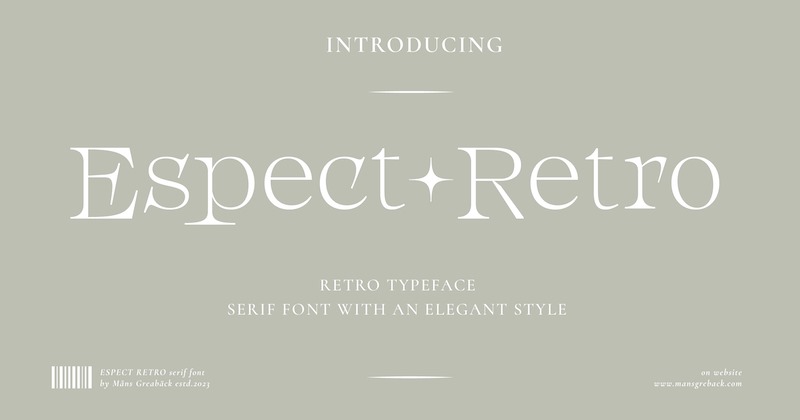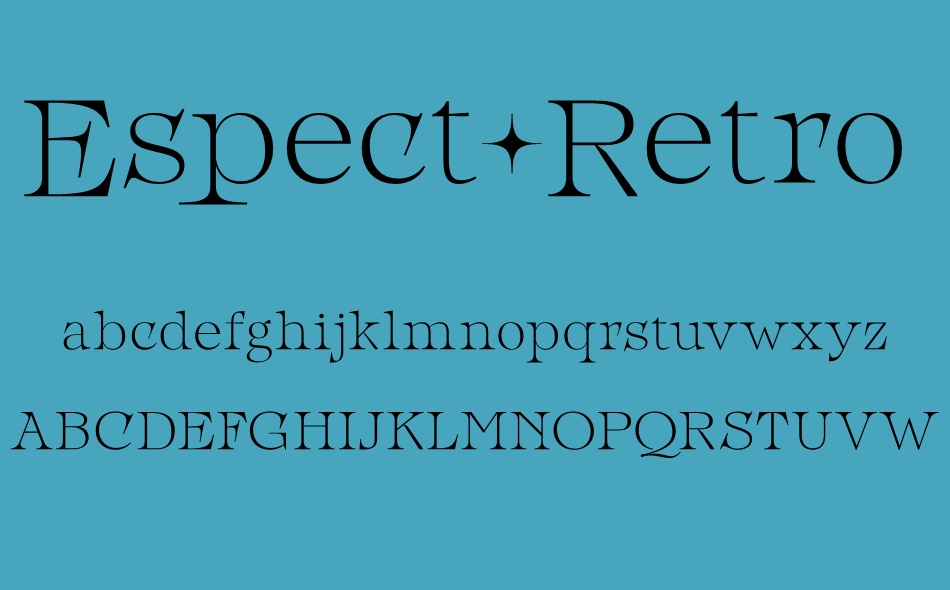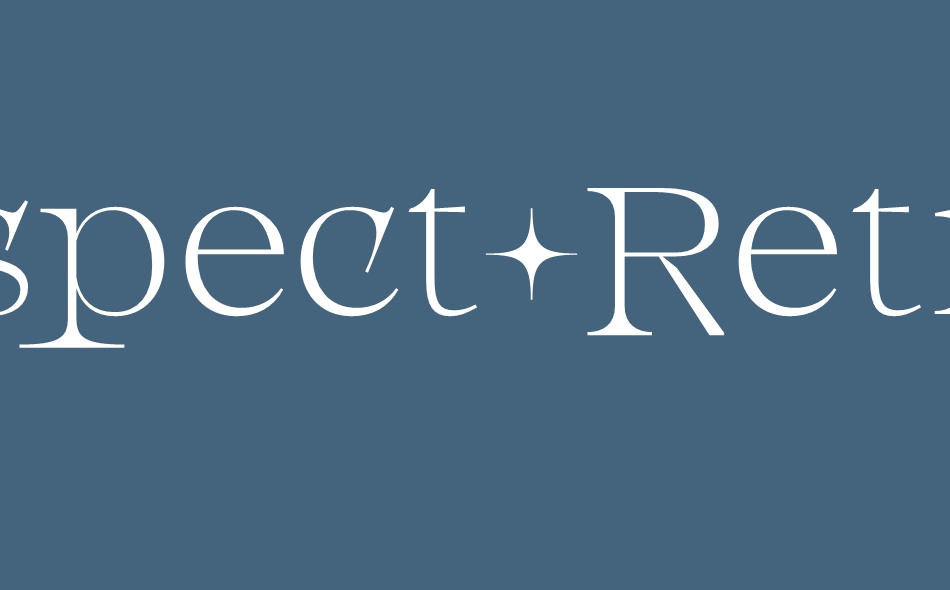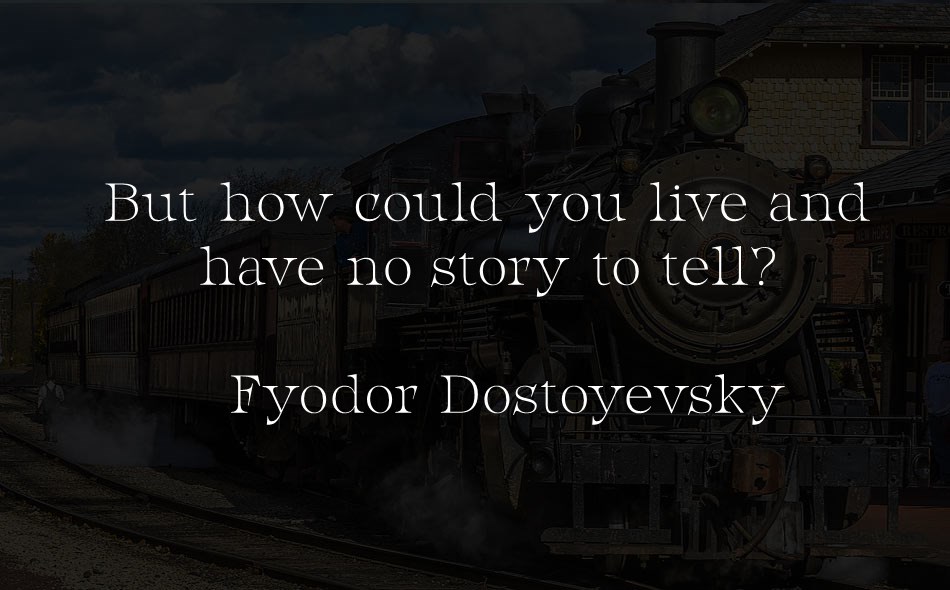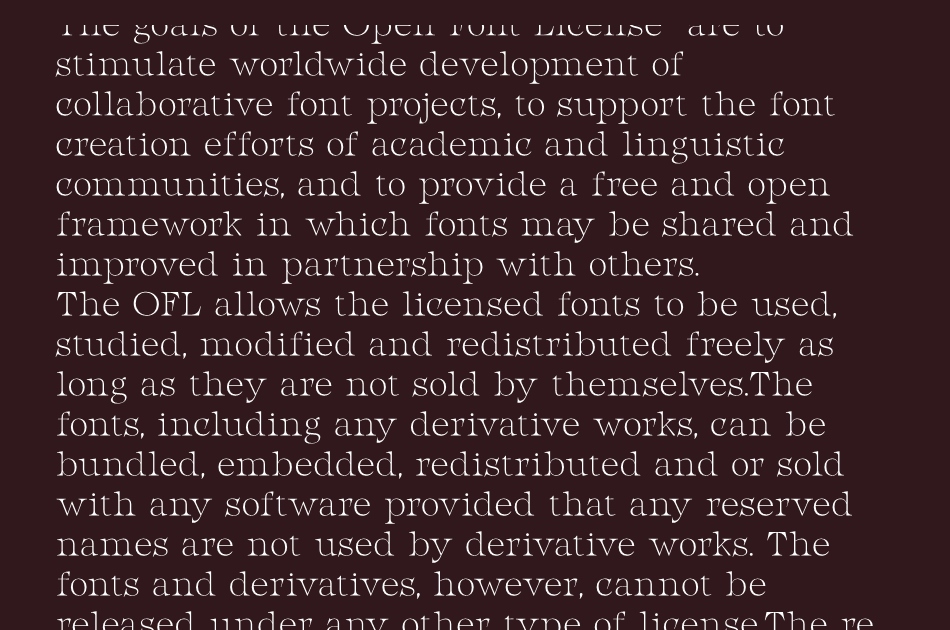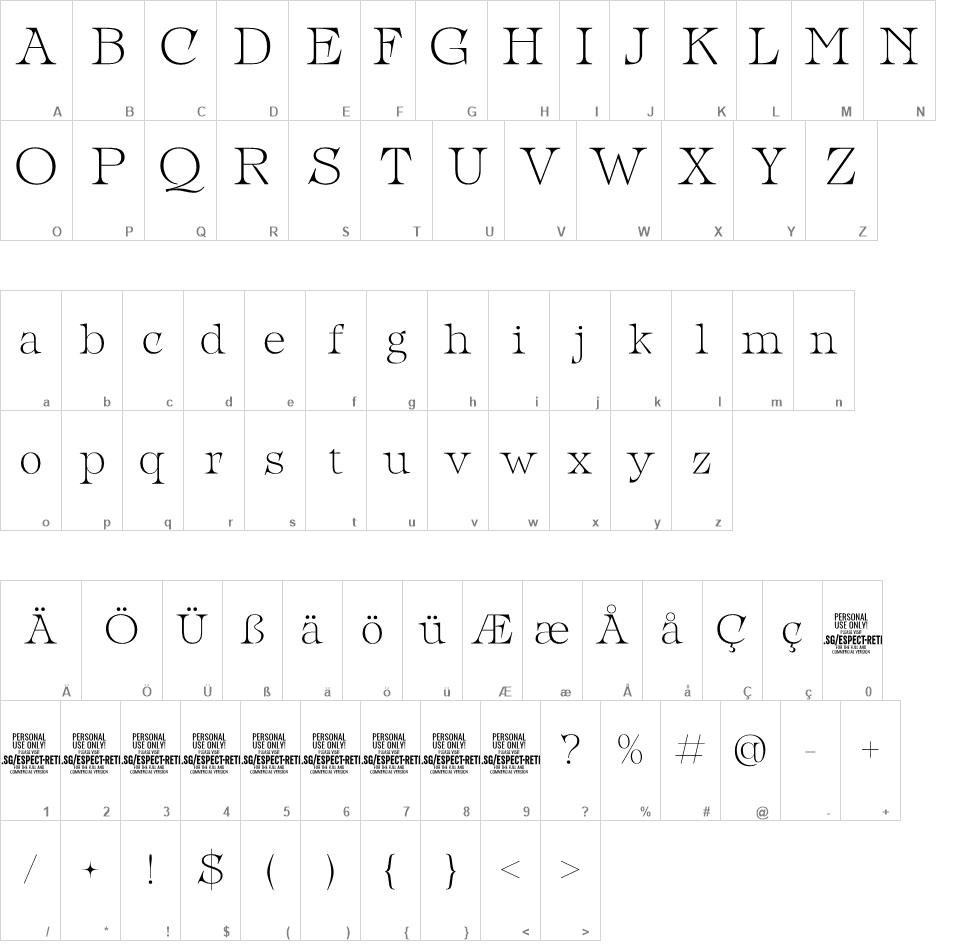
Espect Retro font
Espect Retro is a serif font that harmonious blend of the modern and the classic.
Its wide, yet hairline-thin structure gracefully extends into elongated serifs, giving it a poised and elegant stance. It's a celebration of design that evokes charm and cuteness in every curve and counter.
Espect Retro is created to be a designer's trusted companion, crafted to perfection, and tailored to elevate professional designs with its captivating allure.
Espect Retro beckons to the discerning eye with its harmonious blend of the modern and the classic. Its wide, yet hairline-thin structure gracefully extends into elongated serifs, giving it a poised and elegant stance. The extended x-height isn't just noticeable; it's a celebration of design that evokes charm and cuteness in every curve and counter. Its lightness radiates a fashion-style sophistication, making it a go-to for classy projects. Yet, amidst its contemporary flair, there's a nostalgic nod to traditional typography, a tribute that adds depth to its character. Truly, Espect Retro is created to be a designer's trusted companion, meticulously crafted to perfection, and tailored to elevate professional designs with its captivating allure.
The font is built with advanced OpenType functionality and has a guaranteed top-notch quality, containing stylistic and contextual alternates, ligatures, and more features; all to give you full control and customizability. It has extensive lingual support, covering all Latin-based languages, from Northern Europe to South Africa, from America to South-East Asia. It contains all characters and symbols you'll ever need, including all punctuation and numbers.
Behind Espect Retro's appeal lies the craftsmanship of Mans Greback. With every typeface he introduces, Greback demonstrates a keen understanding of the delicate balance between form and function. Espect Retro is yet another testament to his commitment to excellence, ensuring designers have the tools they need to bring their visions to life.